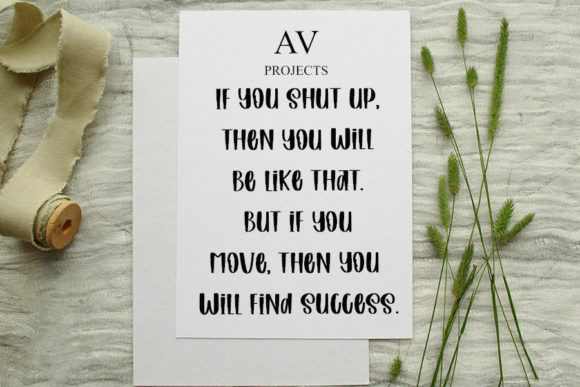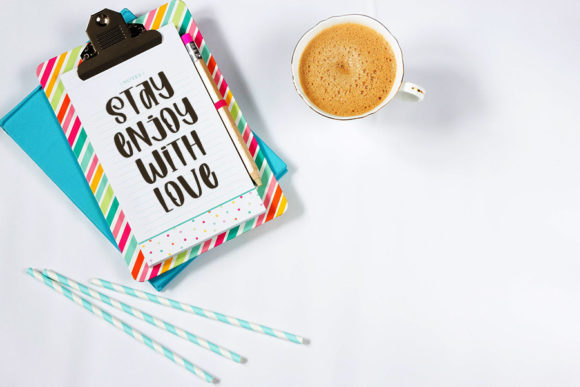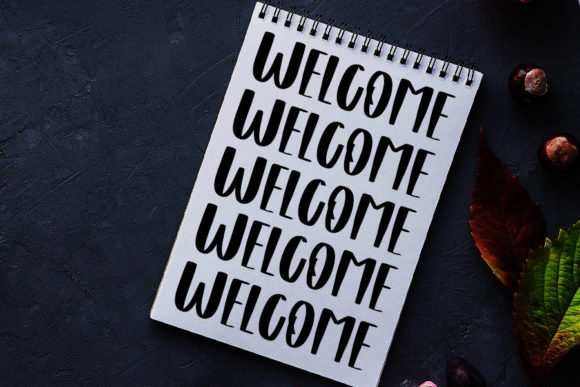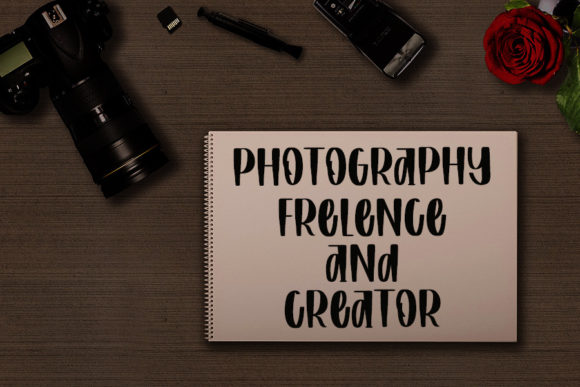
Good Looking Font
About Good Looking Font
Good Looking is a fun, quirky and cool handwritten font. No matter the topic, this font will be an incredible asset to your fonts’ library, as it has the potential to elevate any creation.